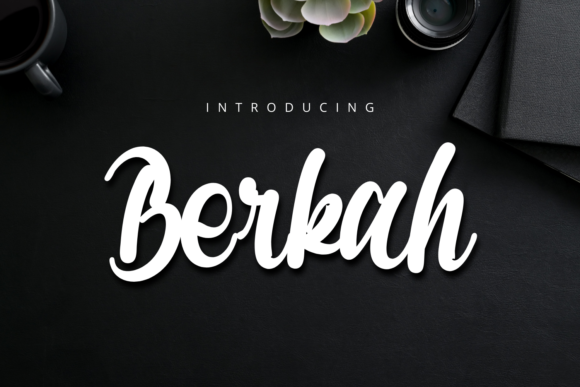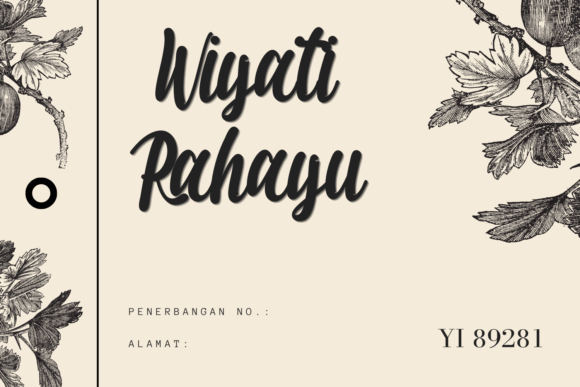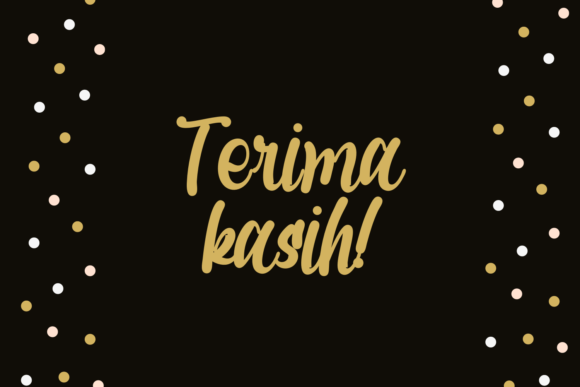
Berkah Font
About Berkah Font
Berkah is a gorgeous and bold handwritten font, crafted to give your headlines and logotype projects a stylish touch. This font reads as strong, confident, and dynamic and can add tons of unique character to your designs.